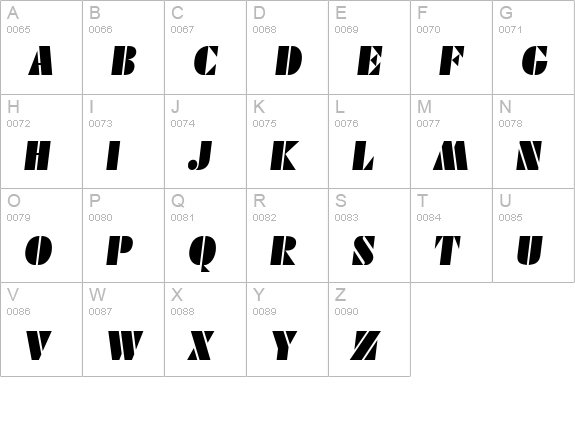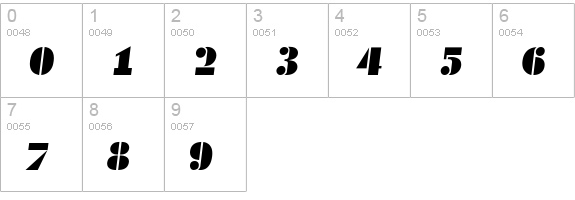
Cado Display SSi Italic Font Details
Cado Display SSi Italic is a distinctive, italic variant in the Cado typeface family \xE2\x80\x94 well suited to design and typography projects.
Cado Display SSi Italic is a remarkable font that effortlessly combines elegance with a touch of playfulness. Its slanted and stylish italic design adds a unique flair to any project, making it ideal for creative works, branding, and advertising materials. The sleek and curvaceous letterforms of Cado Display SSi Italic exude a sense of sophistication and modernity, capturing attention and leaving a lasting impression. With its wide range of characters and ligatures, Cado Display SSi Italic offers versatility and flexibility for various design purposes. Whether used for headlines, titles, or body text, this font stands out with its striking presence and impeccable legibility. It effortlessly conveys a sense of professionalism while maintaining a distinctive and eye-catching aesthetic. One of the most impressive aspects of Cado Display SSi Italic is that it is available for free download at FontsMarket.com. This means that designers, creatives, and enthusiasts alike can easily access and incorporate this font into their projects without any cost. The freedom to utilize such a high-quality font without any financial constraints adds tremendous value and convenience to any design endeavor. So, if you are looking for a font that combines sophistication, creativity, and accessibility, look no further than Cado Display SSi Italic. Its elegant italic design, along with its wide availability as a free download at FontsMarket.com, make it an excellent choice for anyone seeking a font that truly stands out and captivates audiences.